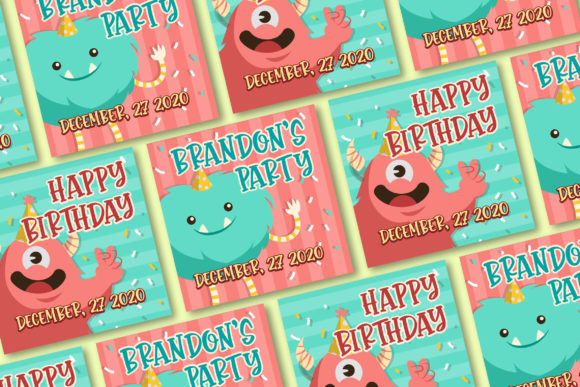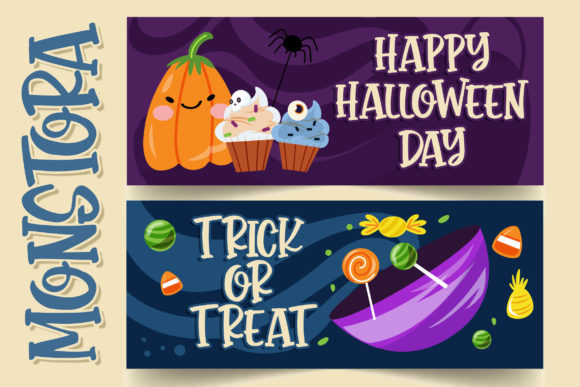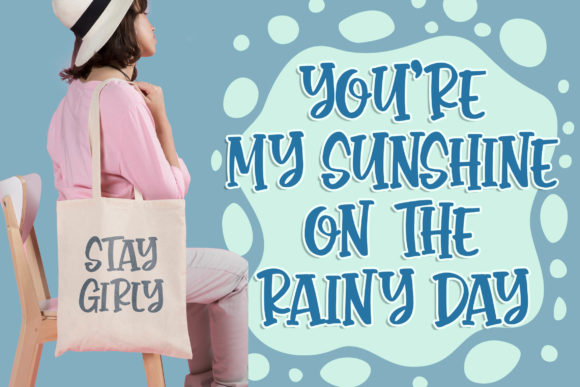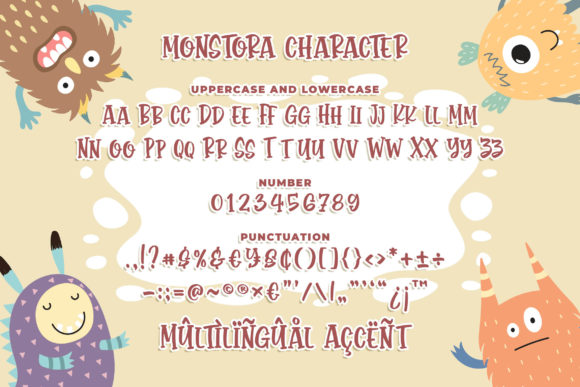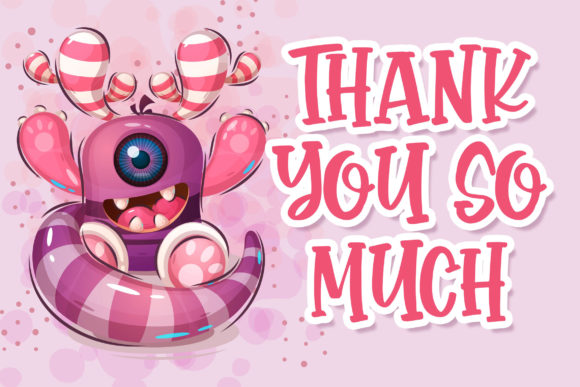
Introduction to Monstora Font
As a designer, have you ever been working on a creative project and felt like it’s missing that extra special something? Maybe you’re crafting a social media post, designing a product label, or building a brand identity. Whatever it is, you know that the right font can make all the difference. That’s where the Monstora Font comes in – a delightful, quirky display font that’s sure to add a touch of whimsy to your designs.
With its high-quality design and transparent background, the Monstora Font is the perfect resource for designers looking to elevate their creative projects. Whether you’re working on a free download or a paid campaign, this beautiful font is sure to make your designs stand out. And the best part? It’s completely free to download and use, making it an invaluable asset for any designer looking to add a little extra magic to their work.
Key Features of Monstora Font
- Unique characteristics include a bold and playful style, making it an excellent choice for creative projects and design enthusiasts.
Honest Review: Monstora Font
As a designer, I’m always on the lookout for high-quality design resources to enhance my creative projects. Recently, I stumbled upon the Monstora Font, and I’m excited to share my thoughts on this font.
What works well: ✨ The Monstora Font has a unique and quirky style that adds a touch of whimsy to any design project. The font is available for free download, which is a major plus for designers on a budget. The transparent background option is also a nice feature, making it easy to layer the font over other design elements.
What could be improved: ⚠️ One of the limitations of the Monstora Font is its limited character set. While it’s perfect for headings and titles, it may not be suitable for long blocks of text. Additionally, the font could benefit from more font weight options to provide more flexibility in design projects.
Overall, I think the Monstora Font is a great addition to any designer’s toolkit. Its unique style and free download option make it an attractive choice for creative projects. While it may have some limitations, it’s definitely worth considering for your next design project.
- Unique and quirky style
Monstora Font is ideal for various creative projects, including logos, posters, and infographics. Its versatility makes it a valuable design resource for designers and non-designers alike.